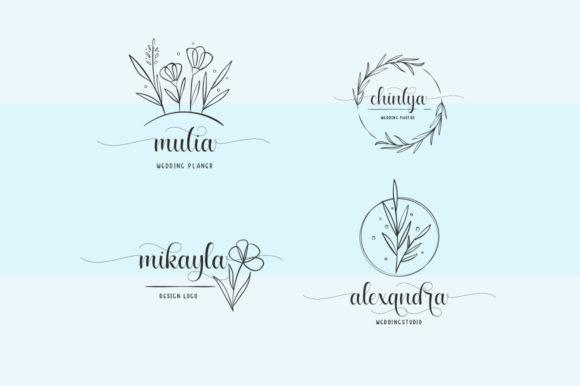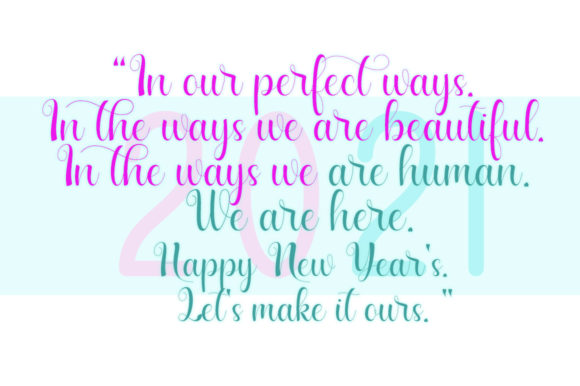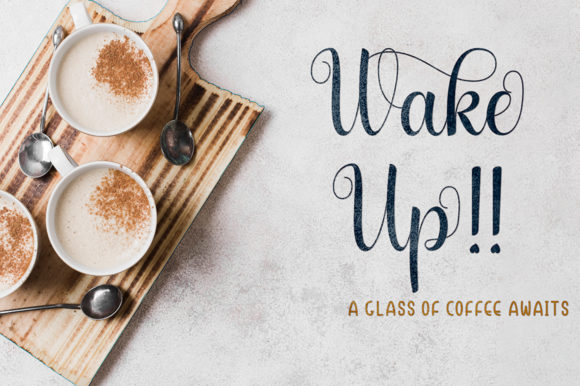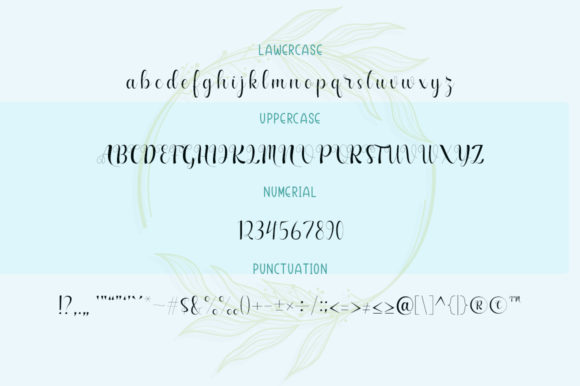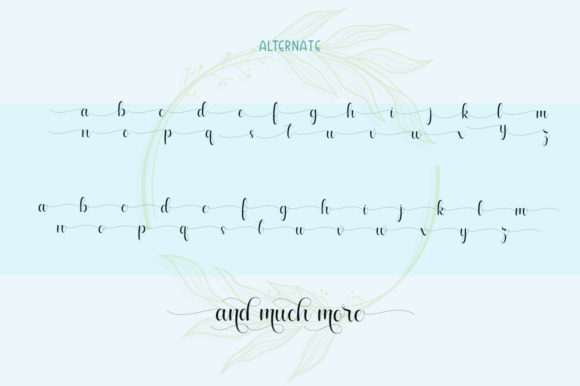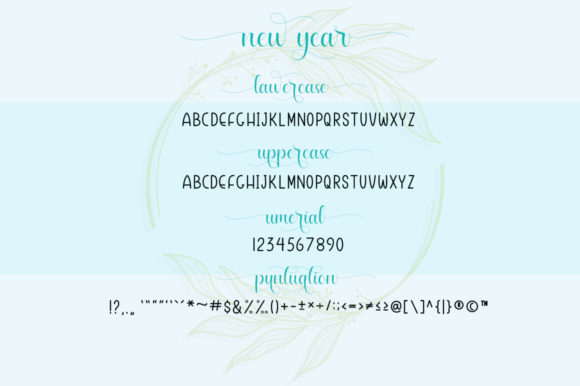
Introduction to New Year New Chapter Font
As the clock strikes midnight on December 31st, we can’t help but feel a sense of excitement and renewal. It’s a time to reflect on the past year and look forward to the possibilities of the new one. For creatives, this moment is especially magical – a blank slate waiting to be filled with new ideas, inspiration, and projects. And what better way to capture the essence of this fresh start than with a beautiful, one-of-a-kind font?
Enter the New Year New Chapter Font, a stunning handwritten font that’s sure to bring any DIY project to life. With its unique flair and high-quality design, this font is the perfect addition to any creative endeavor. Whether you’re working on a personal project or a commercial design, this gorgeous font will add a touch of elegance and sophistication to your work.
Key Features of New Year New Chapter Font
- High-quality design resource ideal for creative projects, including greeting cards, posters, and social media graphics.
- Comes with transparent background, making it easy to customize and integrate with any design.
- Includes 12 unique and stylish characters, perfect for adding a touch of elegance to any design project.
- Designed with a modern and minimalist aesthetic, making it suitable for a wide range of creative projects.
- High-resolution font files ensure crisp and clear text display, even at large sizes.
- Perfect for designers looking for a unique and creative font to add a personal touch to their designs.
Honest Review: New Year New Chapter Font
I recently had the chance to try out the New Year New Chapter Font and I’m excited to share my thoughts on this design resource. As a designer, I’m always on the lookout for high-quality fonts to elevate my creative projects, and I was pleased to see that this font delivers.
- What works well: ✨ The font has a clean and modern aesthetic that makes it perfect for designing promotional materials, social media graphics, and even wedding invitations. The transparent background feature is also a bonus, as it allows for seamless integration with any design element.
While the New Year New Chapter Font is a great addition to any design toolkit, I did encounter some limitations. ⚠️ The font is a bit limited in terms of customization options, which might be a drawback for some designers. Additionally, the font might not be suitable for designs that require a more traditional or vintage look.
Overall, I was impressed with the New Year New Chapter Font and would recommend it to designers working on creative projects that require a modern and sleek aesthetic. The font’s high quality and transparent background feature make it a valuable design resource that’s definitely worth checking out.
The New Year New Chapter Font is perfect for use in a variety of design projects, including:
- New Year’s Eve invitations
- Resolution journals
- Personalized planners
- Goals setting templates